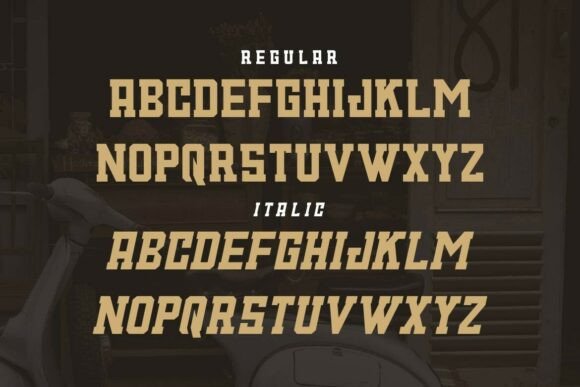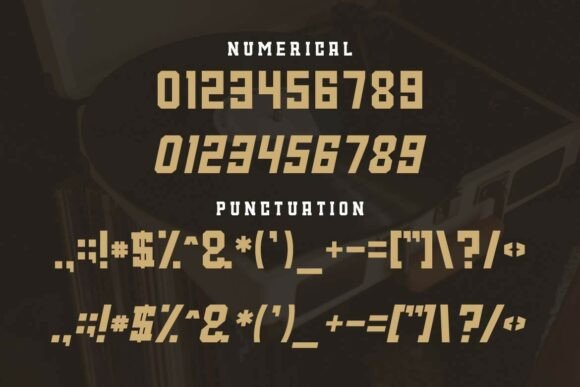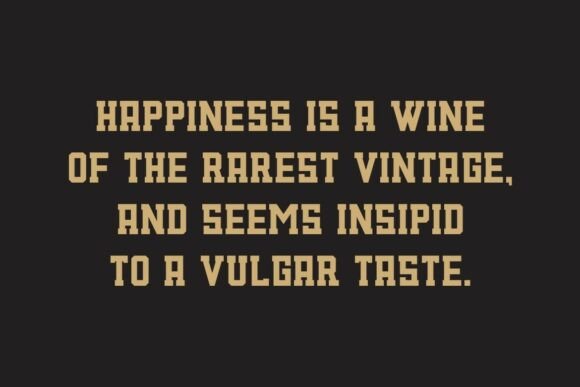
Introduction to Obligate Font
Obligate is a powerful slab serif font built to command attention.
With thick, blocky serifs and confident letterforms, it brings a strong and dependable tone to any design Inspired by industrial strength and timeless typography, Obligate is perfect for headlines, posters, logos, packaging, sports branding, and editorial layouts that demand impact.
Key Features of Obligate Font